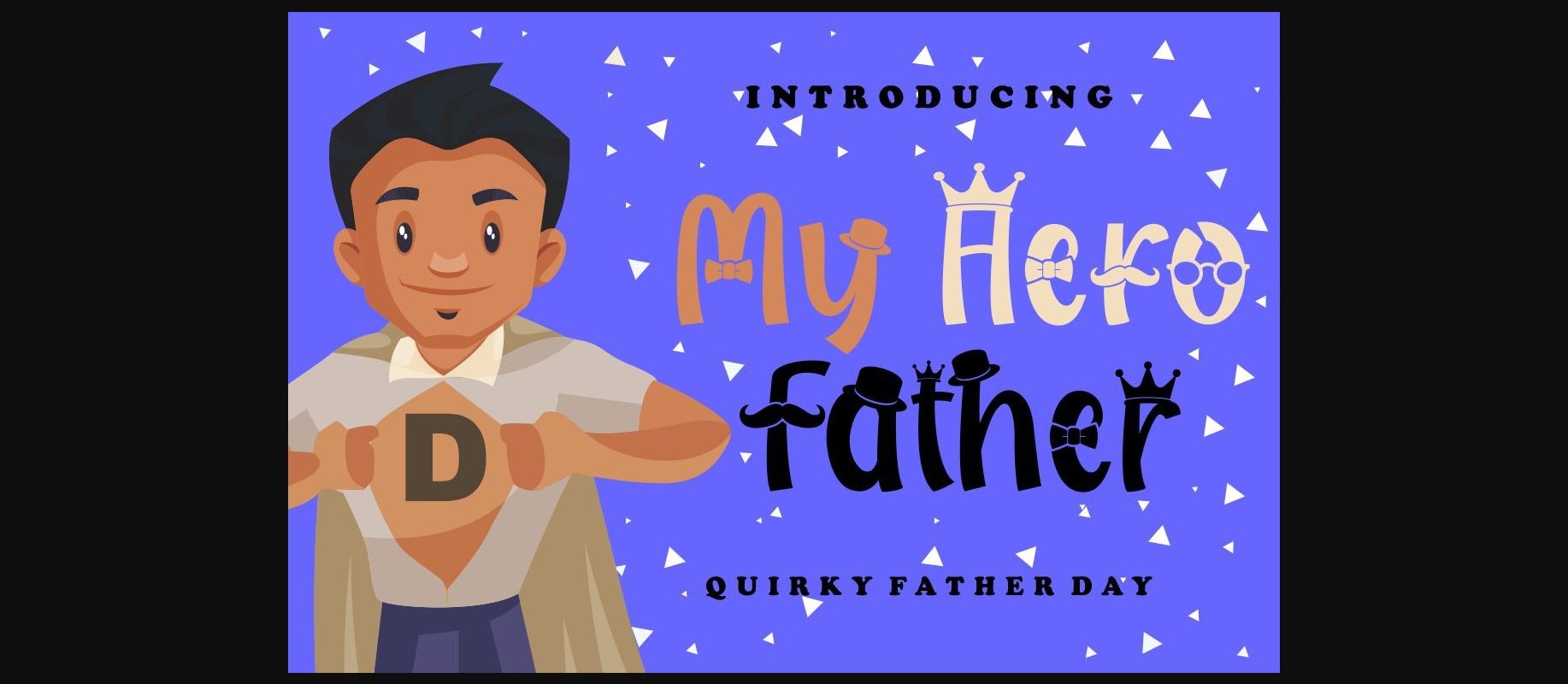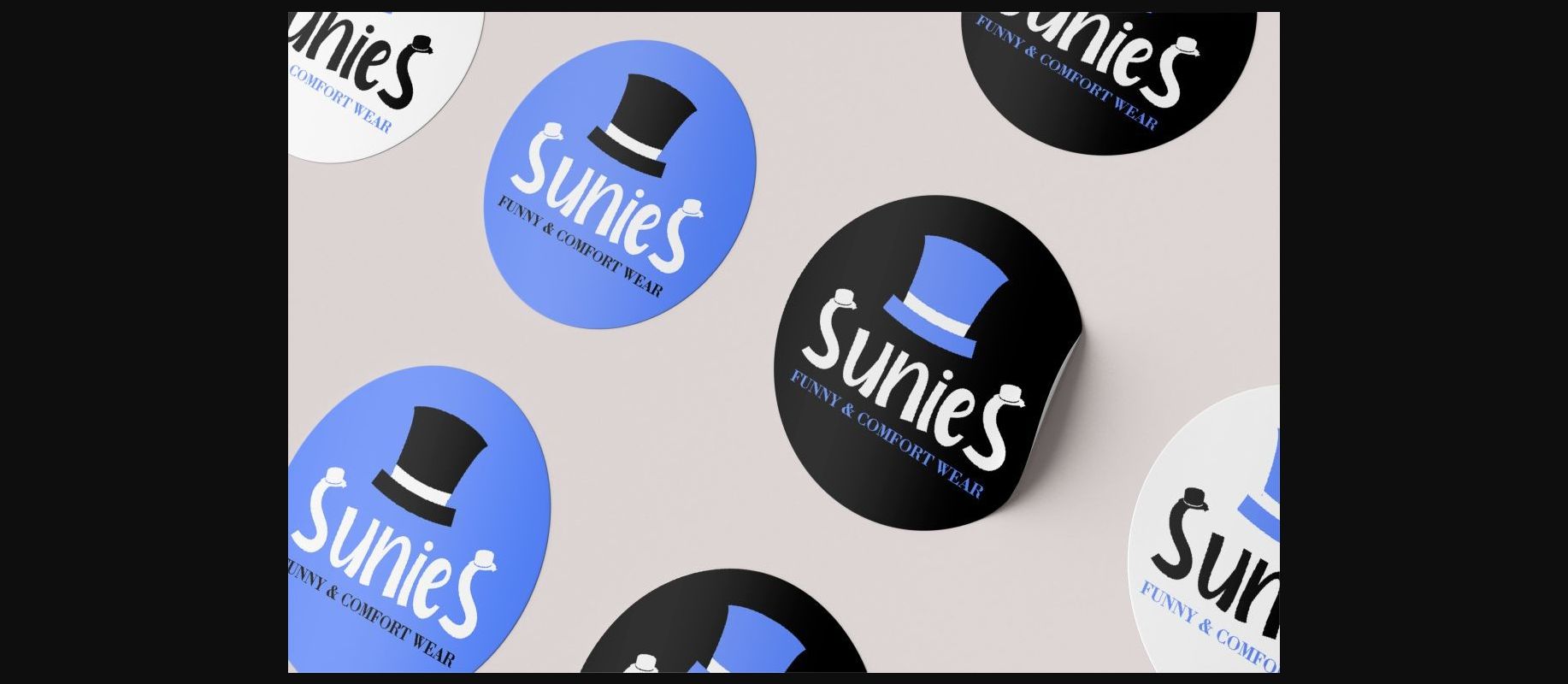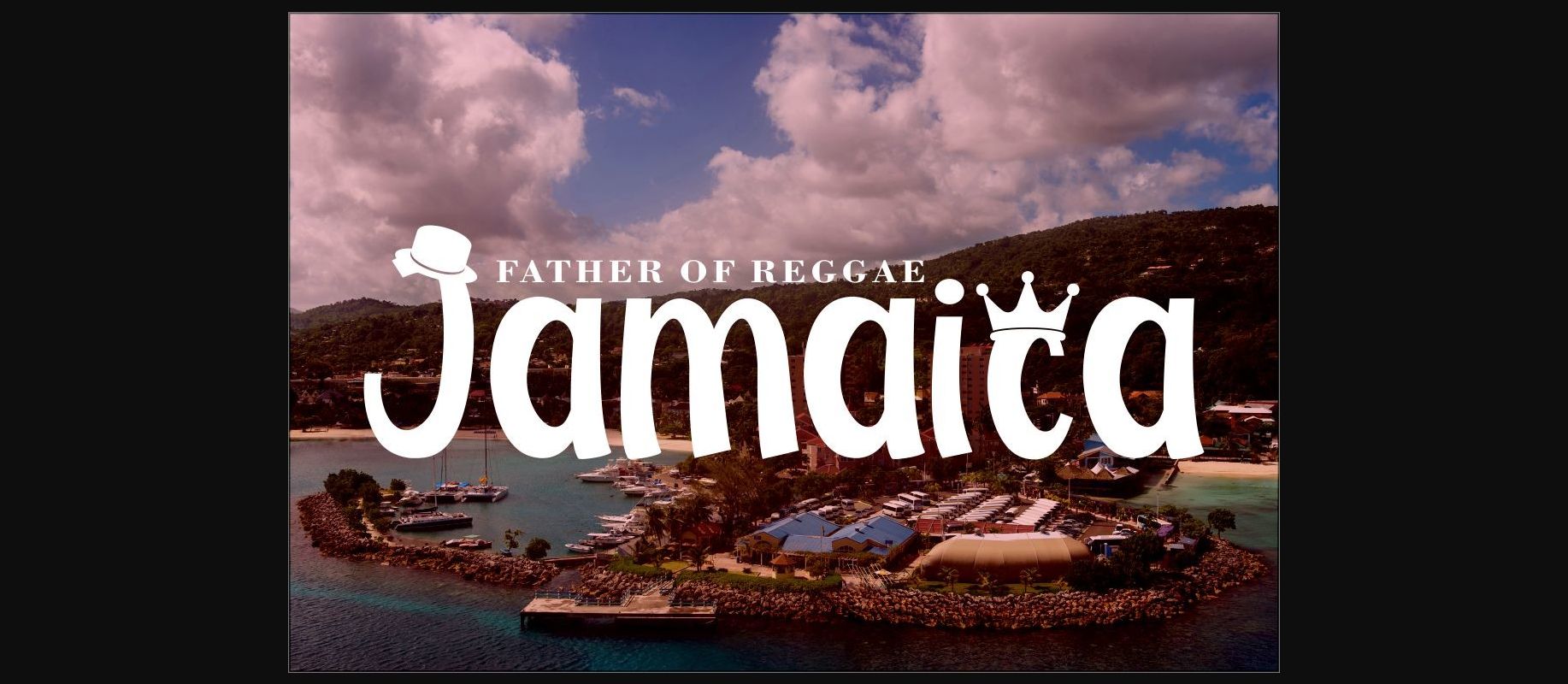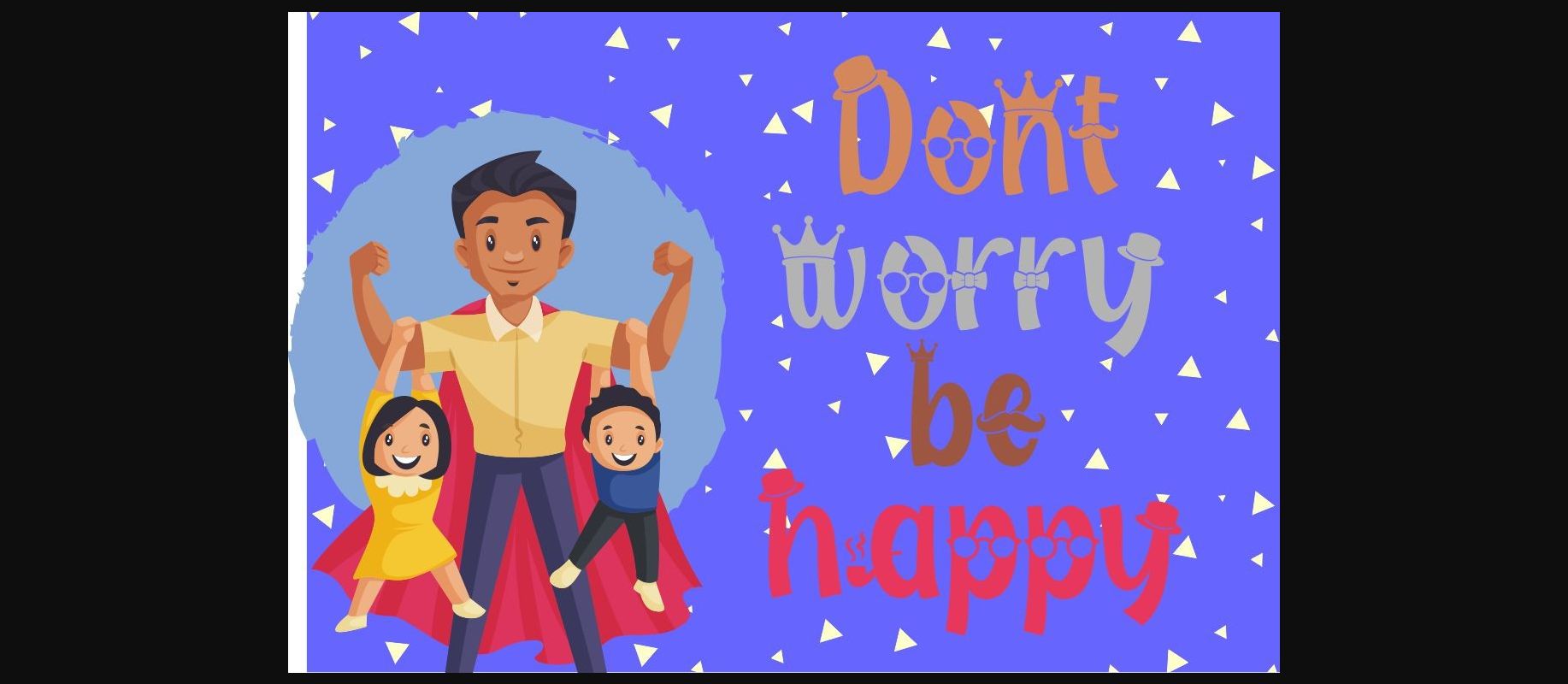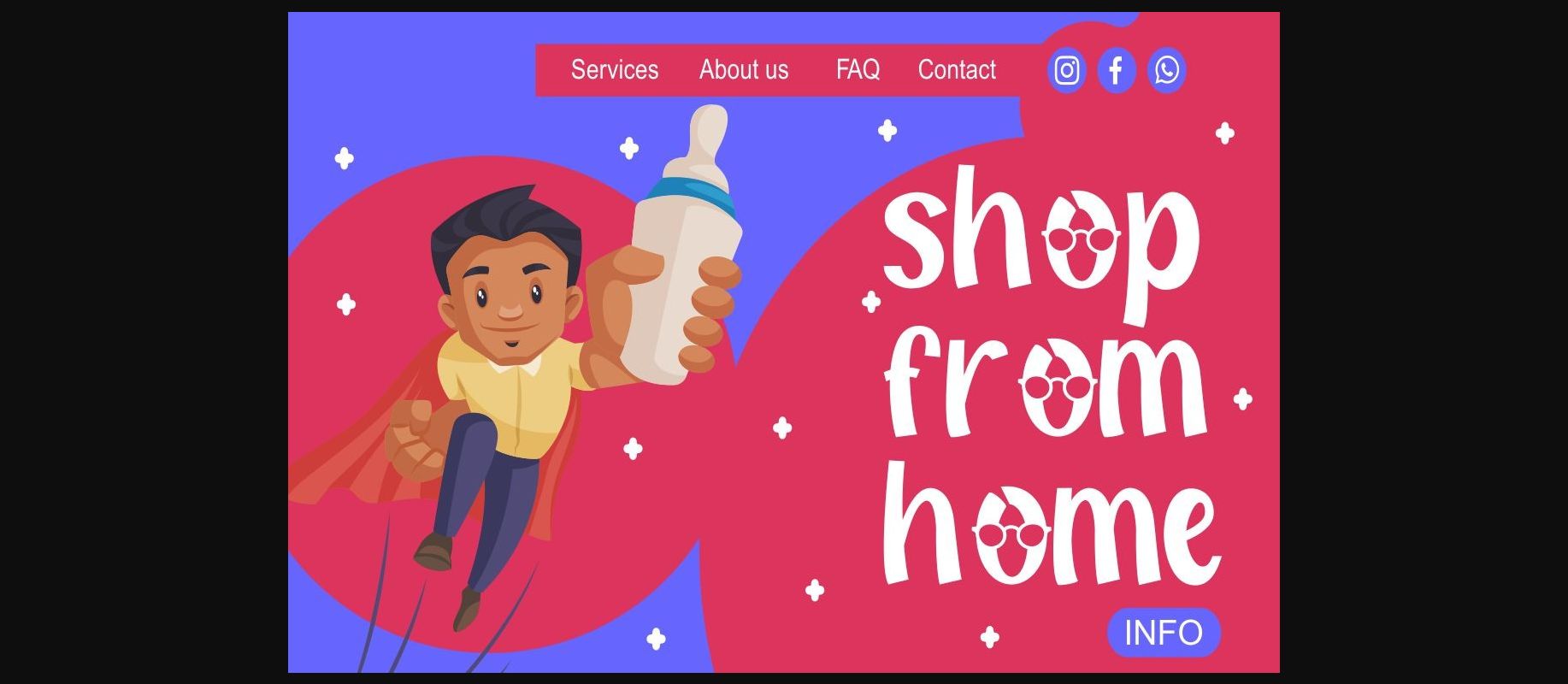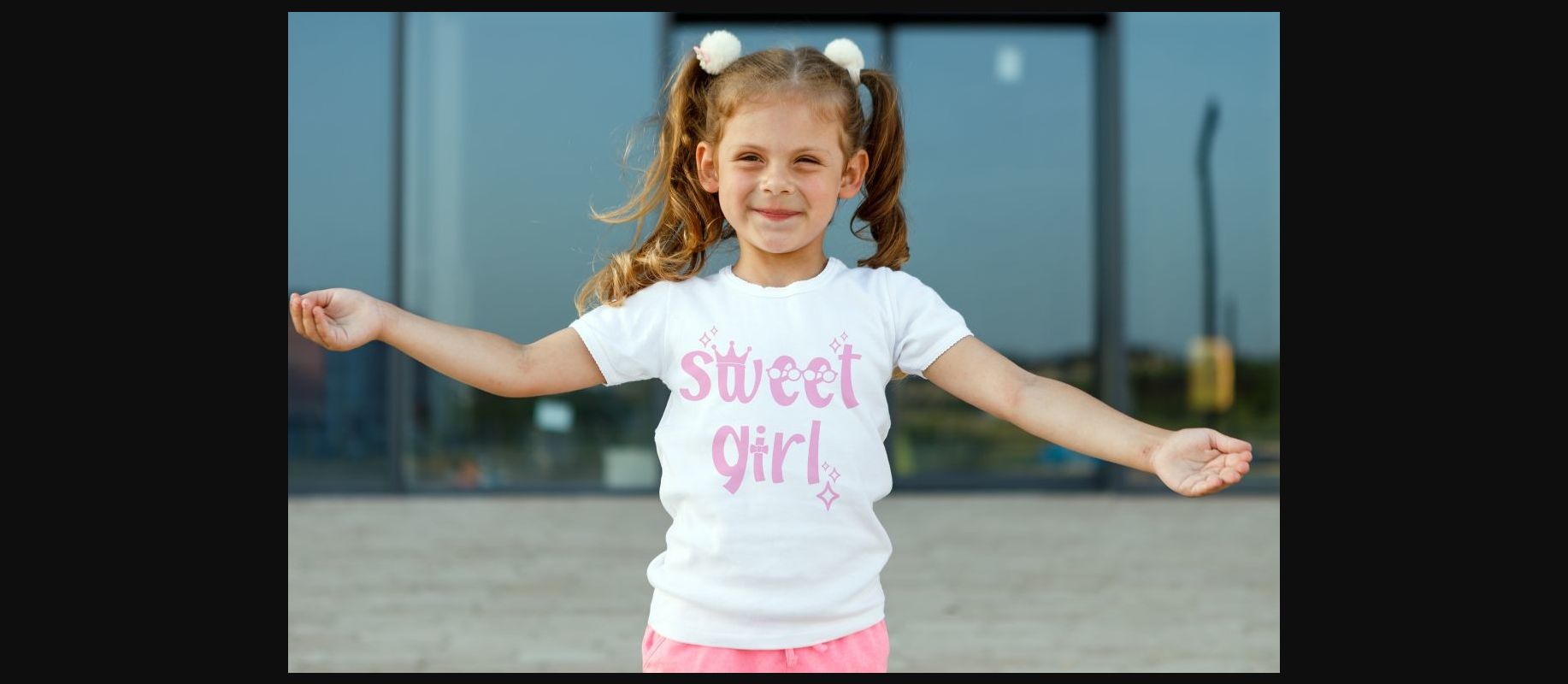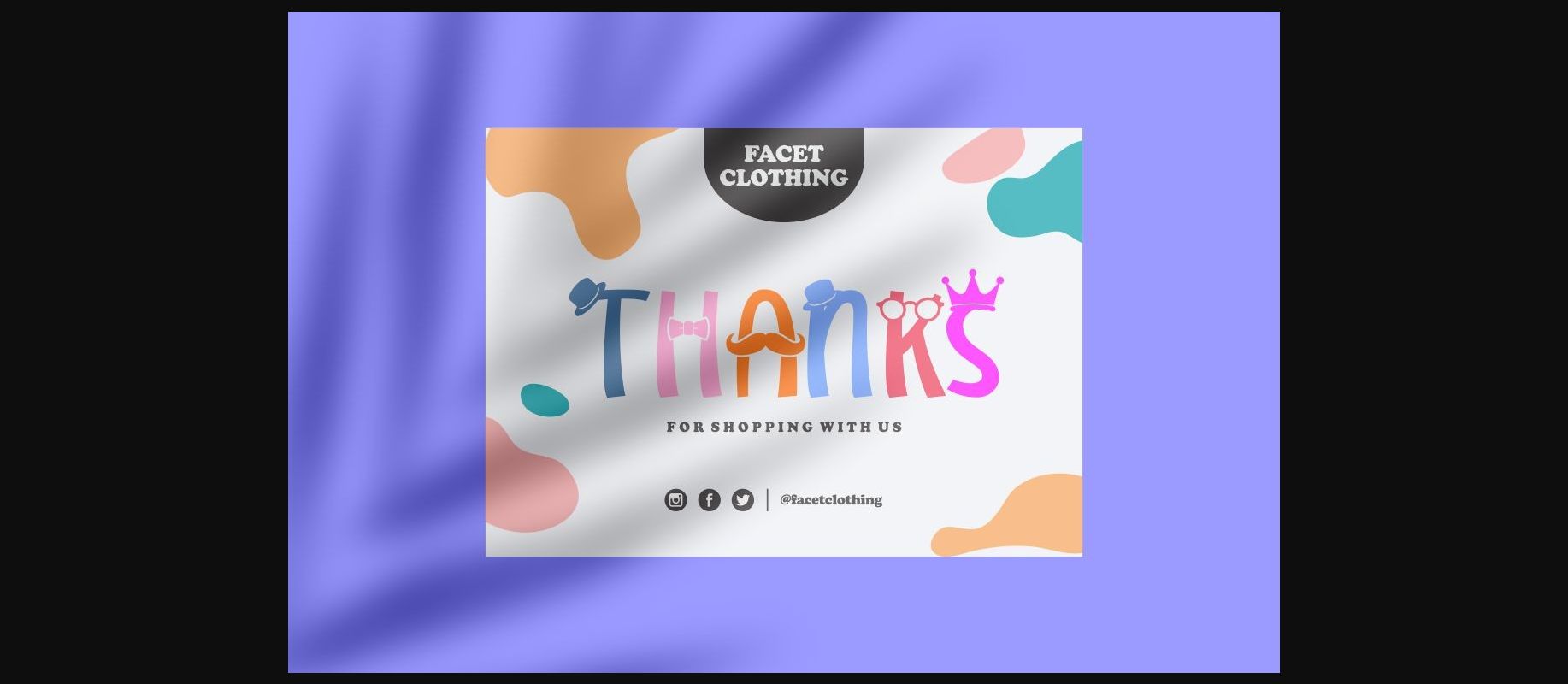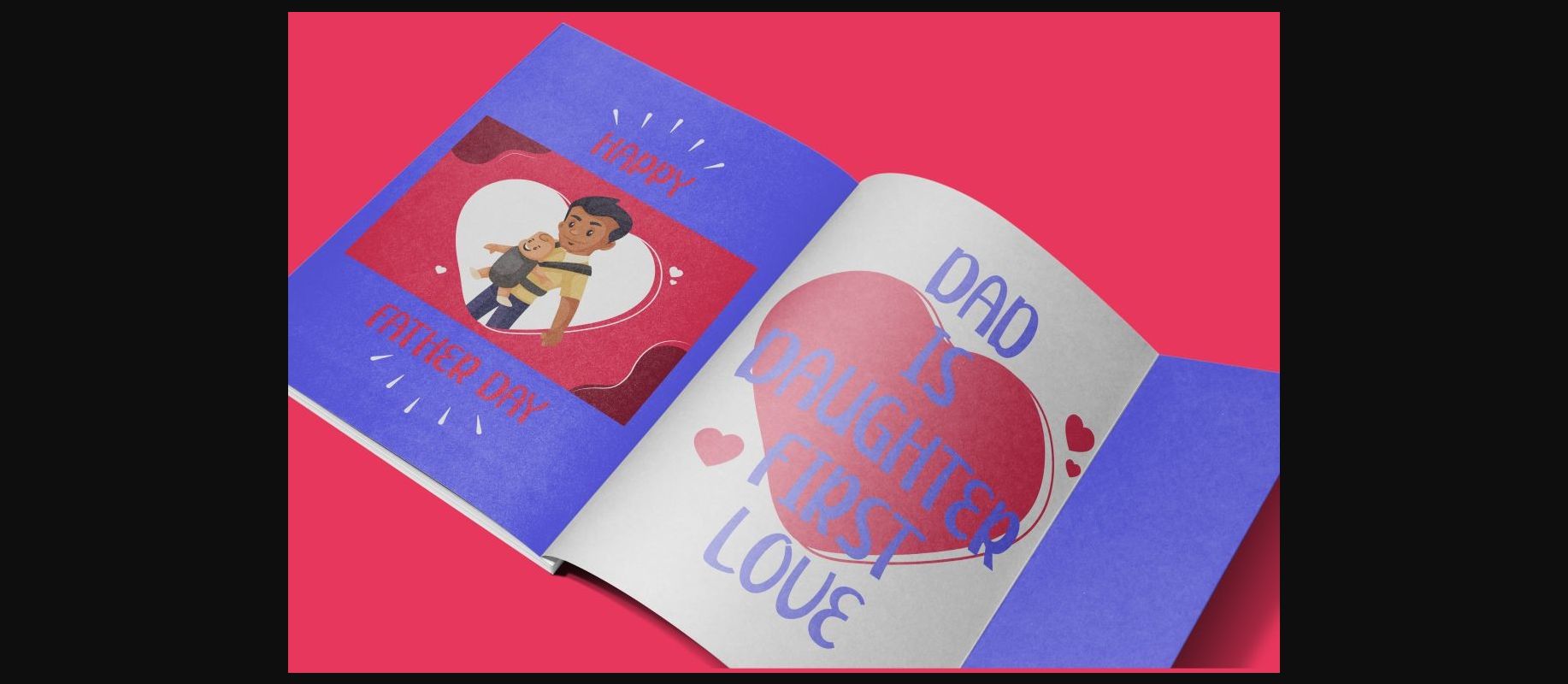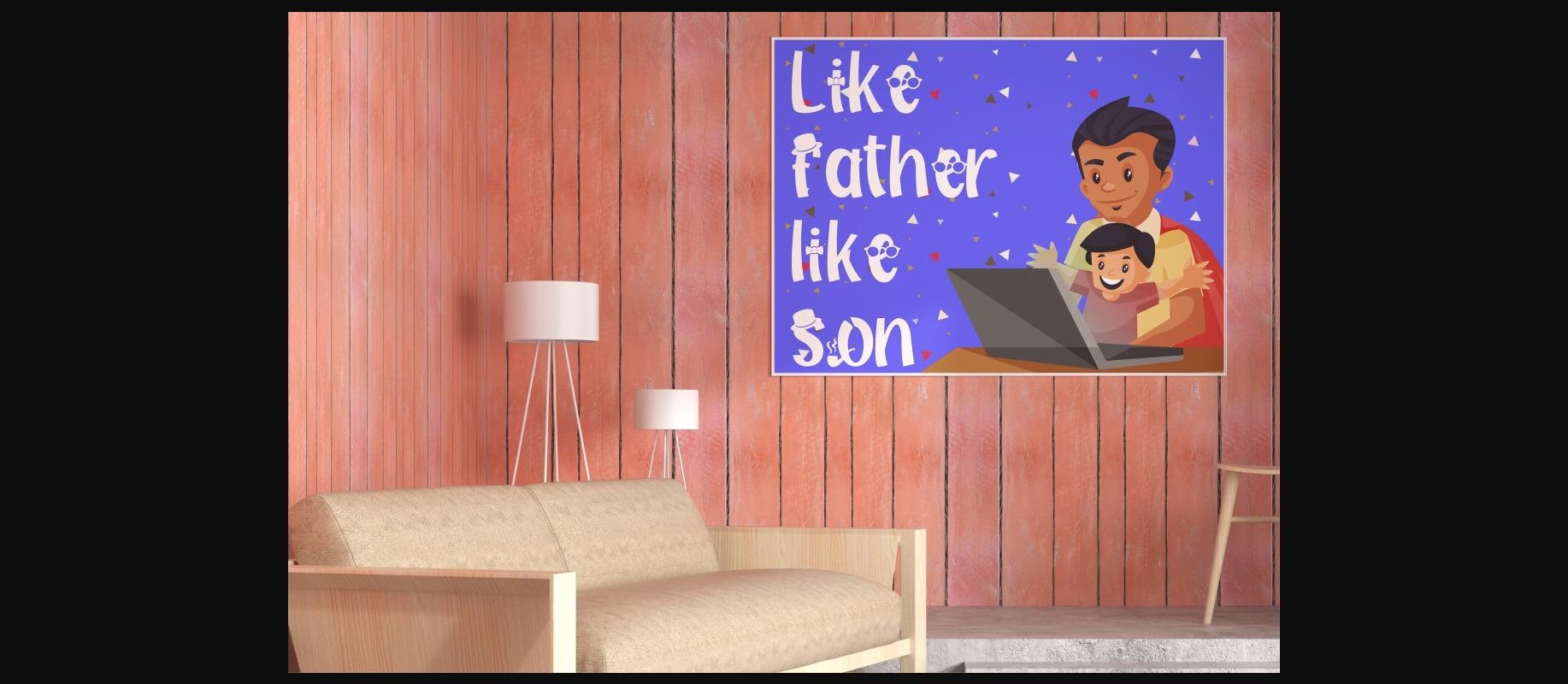
HomeDecorative FontsMy Hero Father Font Decorative Fonts My Hero Father Font FacebookXPinterestWhatsApp 1 of 11 ... My Hero Father Font Poster 2... My Hero Father Font Poster 3... My Hero Father Font Poster 4... My Hero Father Font Poster 5... My Hero Father Font Poster 6... My Hero Father Font Poster 7... My Hero Father Font Poster 8... My Hero Father Font Poster 9... My Hero Father Font Poster 10... My Hero Father Font Poster 11... About My Hero Father Font My Hero Father is a fun, lovely and sweet decorative font. It embodies playfulness and authenticity and is the perfect choice for any children activity or school project. DOWNLOAD NOW People also explored Ratene Font Twine Script Midnight Sleighride Font Saghea Font Farmhouse Font Room Font Boverly Font Nicolas Font Skylabor Font 263 0 TagsMy Hero Father Font Previous articleWinter Snowflake FontNext articleSnow Freeze Font LEAVE A REPLY Cancel reply Comment: Please enter your comment! Name:* Please enter your name here Email:* You have entered an incorrect email address! Please enter your email address here Website: Save my name, email, and website in this browser for the next time I comment. Personal Use Free Alligator Font Personal Use Free Read more about this font Drip October Font Personal Use Free Read more about this font Kaylafiz Personal Use Free Read more about this font Special Day Personal Use Free Read more about this font BLOG 5 Fonts That Will Dominate Design Trends in 2026 5 Fonts for 2026 That Will Dominate Design Trends Typography plays a critical role in visual communication, and as we look ahead to 2026, it’s... Free Fonts Risk: Why Free Fonts Can Be Dangerous for Designers How to Cut Any Font on Cricut: Convert a Font to SVG (Free) Top 7 Google Fonts Alternatives for Faster and Privacy-Friendly Web Design (2025)